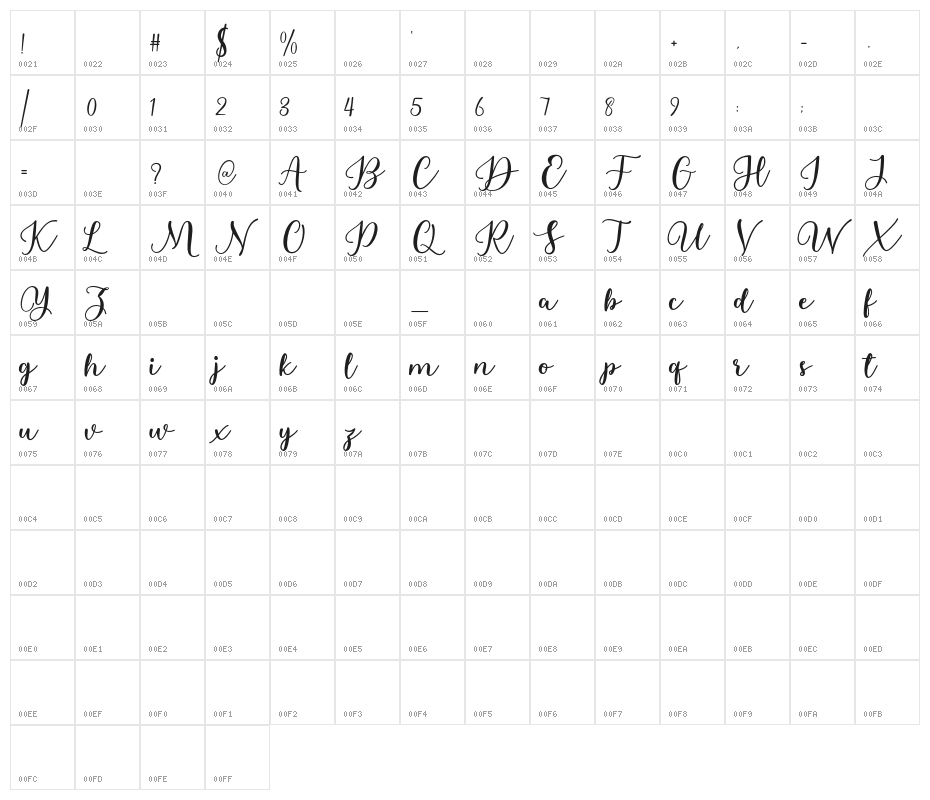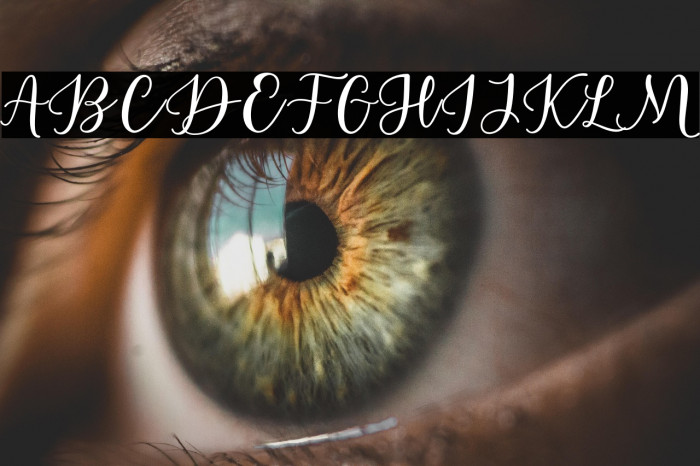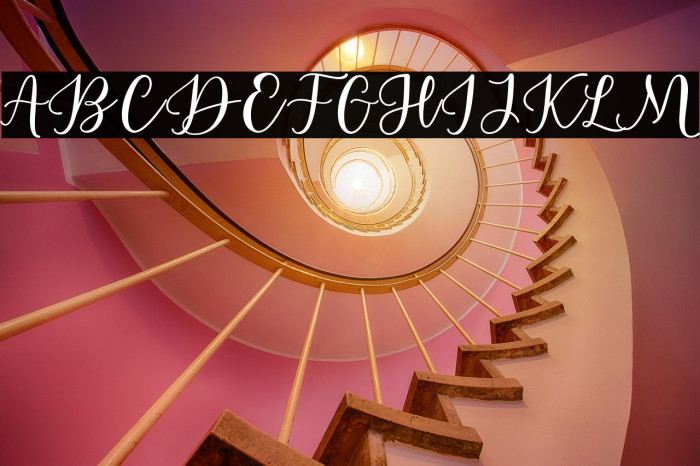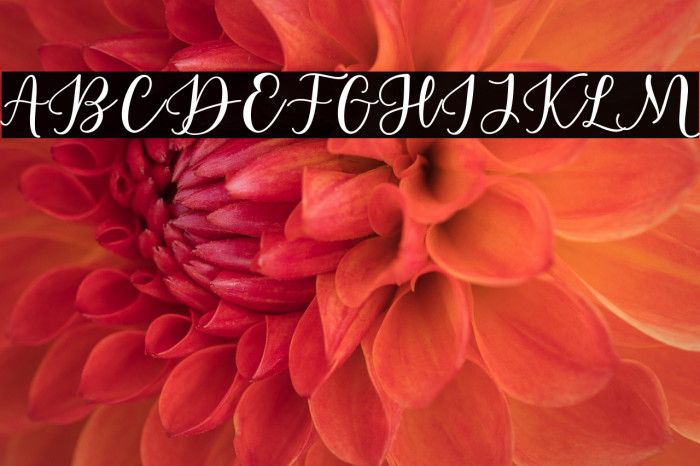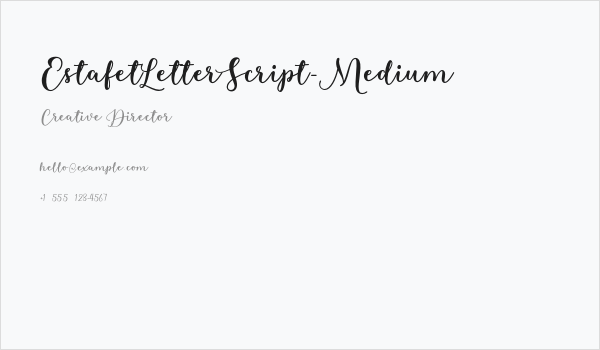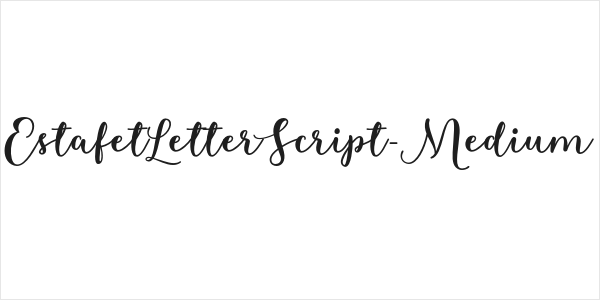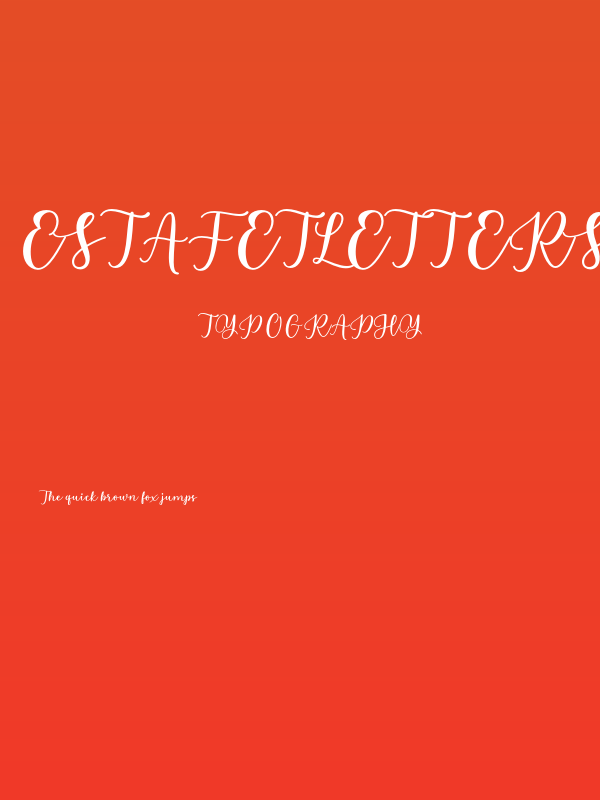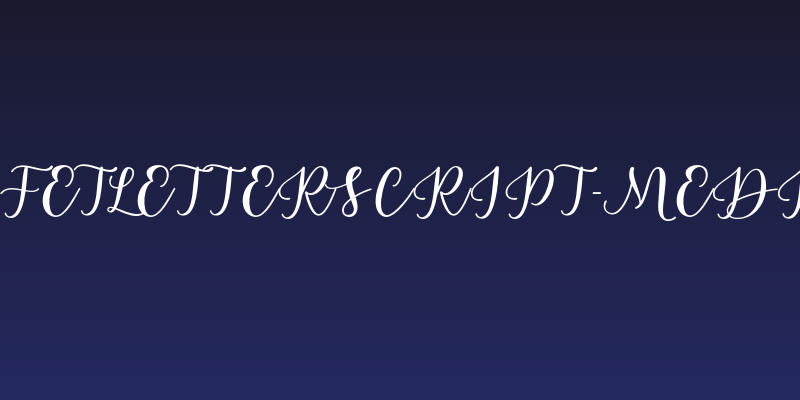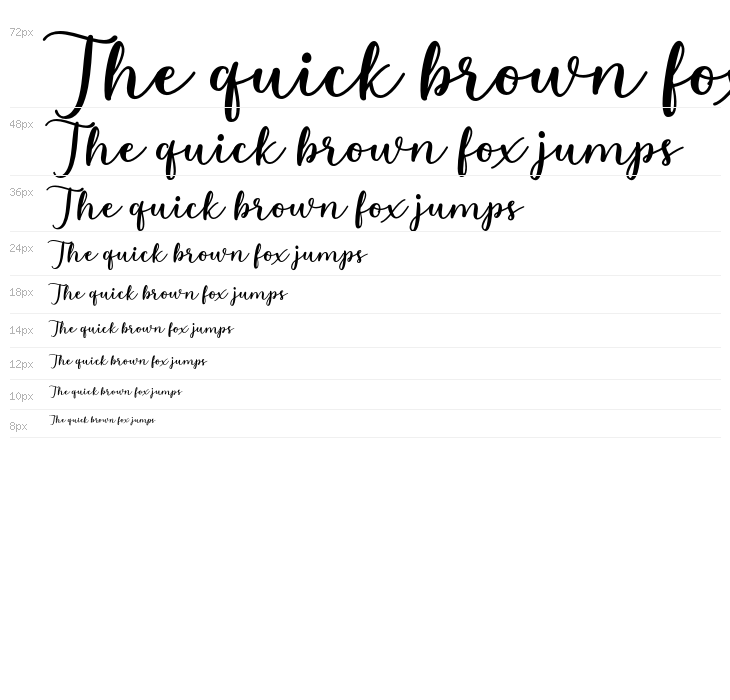
EstafetLetterScript-Medium Font
EstafetLetterScript-Medium Description
This font exudes a lively and elegant script style, characterized by its flowing and connected letterforms. The uppercase letters are gracefully looped, with a consistent slant that adds a sense of motion and fluidity. The lowercase letters maintain a harmonious balance, with rounded curves and smooth transitions between strokes. The numerals are distinct and maintain the script's aesthetic, while the special characters integrate seamlessly, enhancing the overall cohesive look. This font is perfect for projects that require a touch of sophistication and charm.
| Overall Style | Elegant |
| Use Case | Logos, Invitations, Decorative text |
| Proposed Projects | Ideal for wedding invitations, greeting cards, branding, and elegant packaging. |